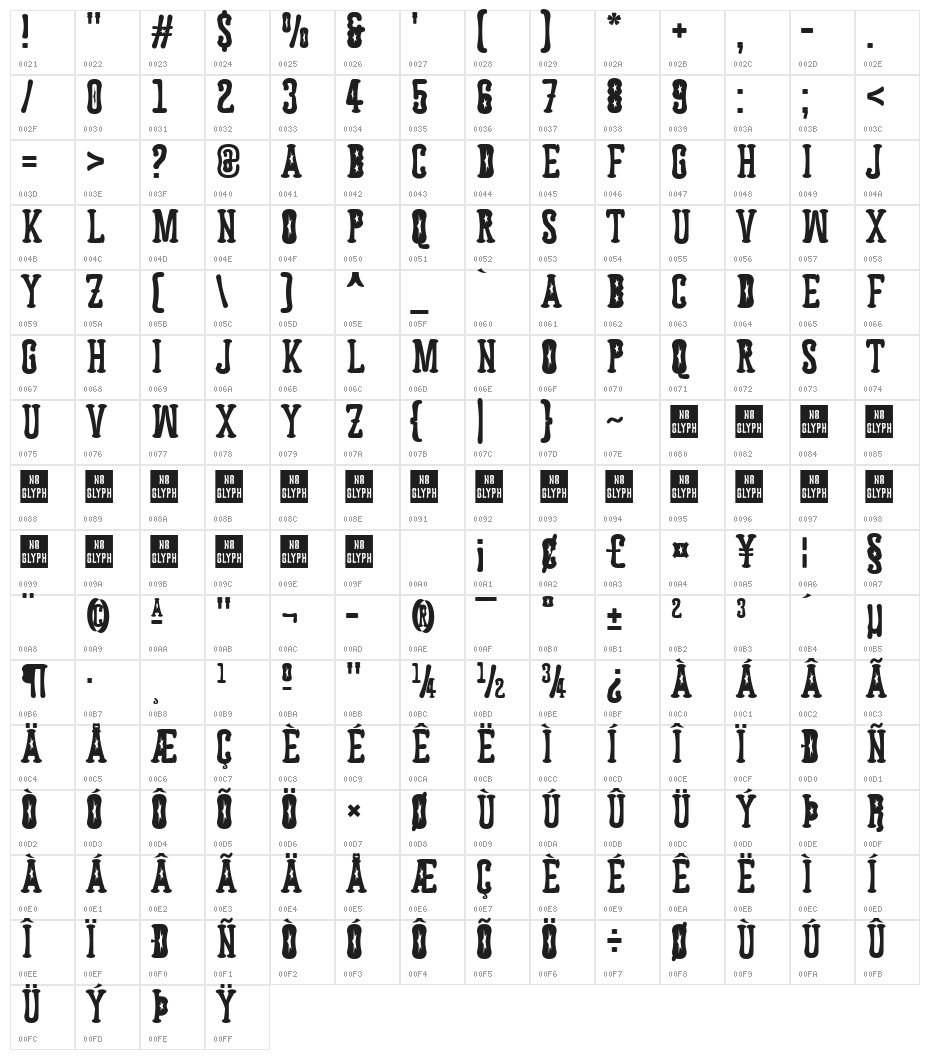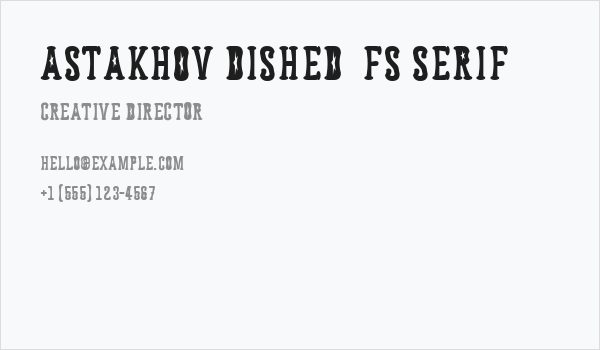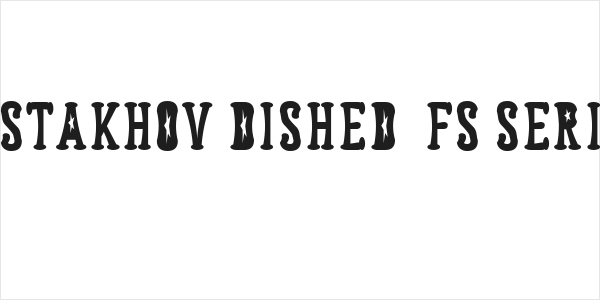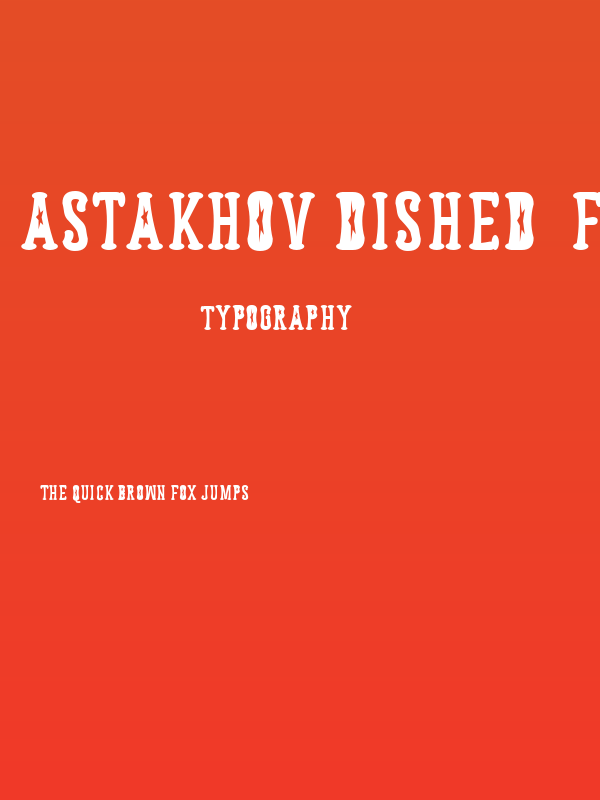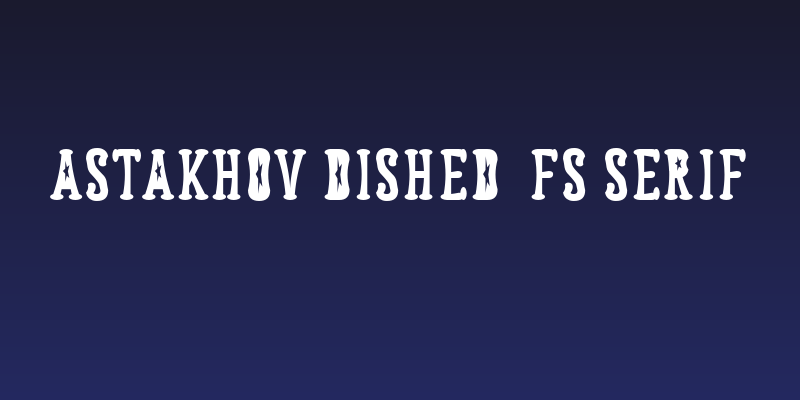
Astakhov Dished FS Serif Font
Astakhov Dished FS Serif Description
This font features a bold and decorative style with a unique star cutout in the center of each character, giving it a playful and eye-catching appearance. The letters are robust and slightly condensed, with thick strokes that create a strong visual impact. The uppercase and lowercase letters maintain a consistent design, while the numbers and special characters follow the same thematic style. The font's distinct personality makes it suitable for projects that require a touch of whimsy and boldness. Its decorative nature is ideal for creating standout headlines, posters, and branding materials that demand attention.
Use CaseHeadlines, Posters, Branding
Proposed ProjectsIdeal for posters, headlines, branding materials, and any design needing a bold, playful touch.